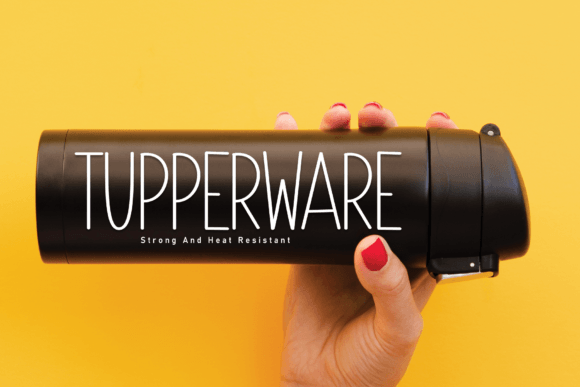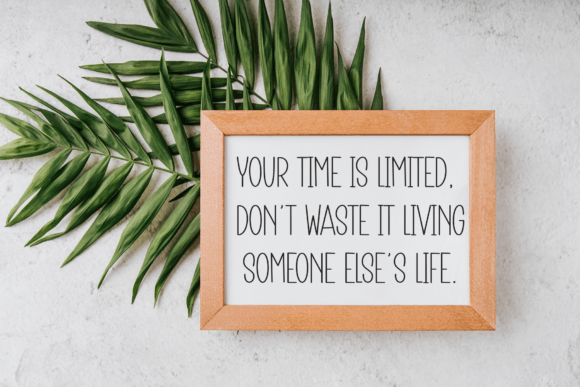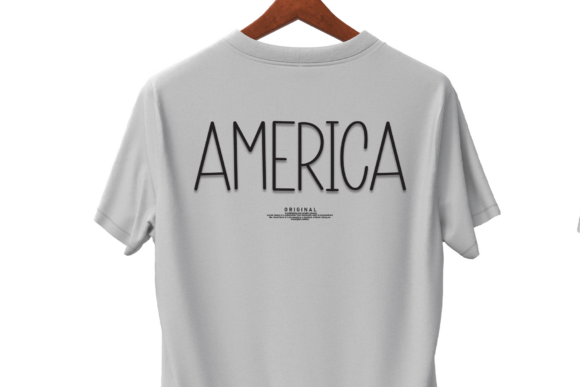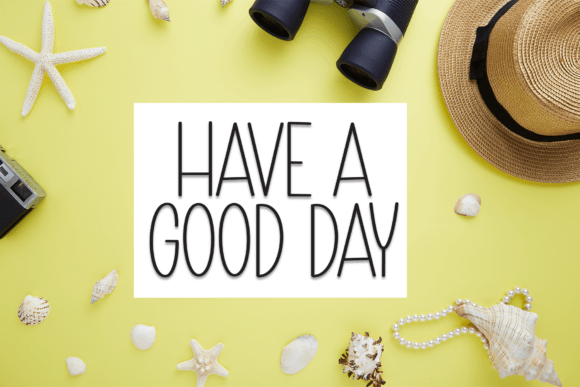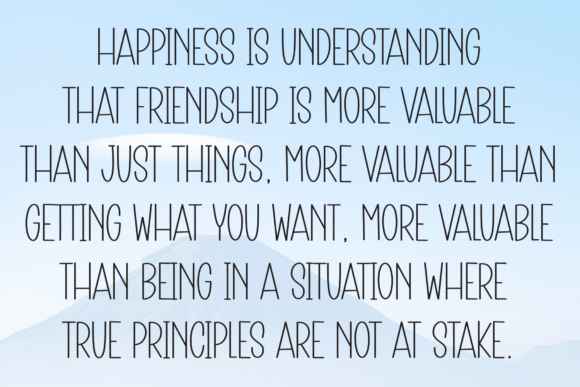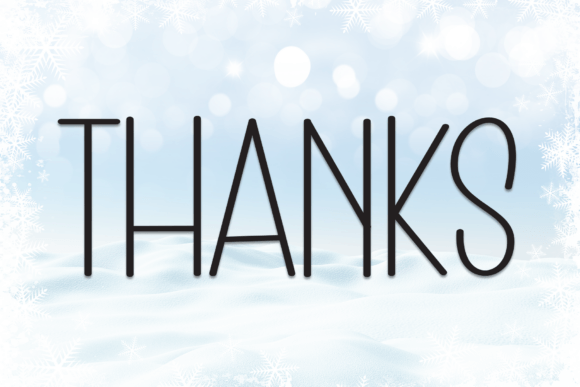
Frosty Christmas Font: A Sweet and Friendly Handwritten Font for Your Holiday Designs
Are you looking for a font that captures the essence of the holiday season? Look no further than the Frosty Christmas font! This sweet and friendly handwritten font is perfect for designers and crafters who want to add a touch of magic to their Christmas designs. With its natural and unique style, Frosty Christmas is incredibly versatile and can be used for a wide range of projects.
The Perfect Font for Holiday Designs
Frosty Christmas font is a beautifully crafted handwritten font that is sure to bring a smile to your face. Its friendly and approachable style makes it perfect for creating festive and fun designs that are sure to delight. Whether you’re designing holiday cards, gift tags, or social media graphics, Frosty Christmas is the perfect font to add a touch of holiday cheer.
One of the best things about Frosty Christmas font is its versatility. Its natural and unique style makes it incredibly fitting for a large pool of designs. From rustic and vintage-inspired designs to modern and sleek ones, Frosty Christmas font can be used to create a wide range of holiday designs. The only limit is your imagination!
Key Features of Frosty Christmas Font
So, what makes Frosty Christmas font so special? Here are some of its key features:
- Sweet and friendly style: Frosty Christmas font has a warm and inviting style that is sure to bring a touch of holiday cheer to your designs.
- Handwritten feel: With its natural and unique style, Frosty Christmas font has a beautiful handwritten feel that adds a personal touch to your designs.
- Versatile: Frosty Christmas font can be used for a wide range of designs, from holiday cards and gift tags to social media graphics and more.
- Easy to read: Despite its playful style, Frosty Christmas font is easy to read, making it perfect for designs that require a clear and legible font.
Ideas for Using Frosty Christmas Font
So, how can you use Frosty Christmas font in your designs? Here are a few ideas to get you started:
- Holiday cards: Use Frosty Christmas font to create beautiful and festive holiday cards that are sure to delight your friends and family.
- Gift tags: Add a touch of holiday cheer to your gifts with Frosty Christmas font. Use it to create cute and colorful gift tags that are sure to make your gifts stand out.
- Social media graphics: Use Frosty Christmas font to create festive and fun social media graphics that are sure to get you in the holiday spirit.
- Holiday party invitations: Create beautiful and festive holiday party invitations with Frosty Christmas font. It’s the perfect way to set the tone for a fun and festive holiday party.
Tips for Using Frosty Christmas Font
Here are a few tips for using Frosty Christmas font in your designs:
- Experiment with different colors: Frosty Christmas font looks great in a variety of colors, so don’t be afraid to experiment and find the perfect color for your design.
- Pair it with other fonts: Frosty Christmas font pairs well with other fonts, so try pairing it with a bold font for a fun and playful look.
- Use it for headings and titles: Frosty Christmas font is perfect for headings and titles, so use it to add a touch of holiday cheer to your designs.